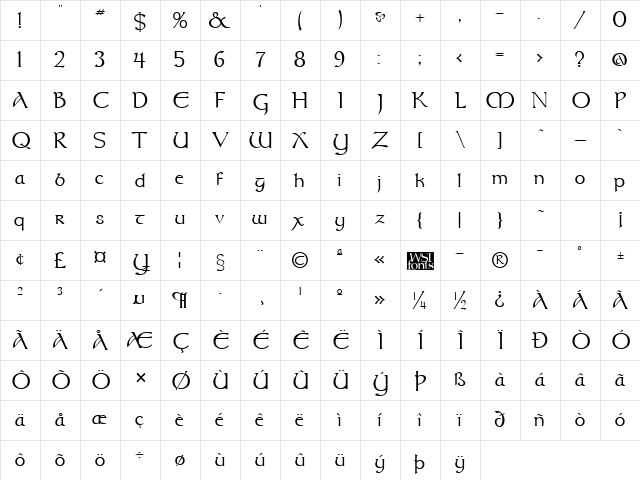
TolkienUpright Regular
Design Context for TolkienUpright
TolkienUpright is a composed and adaptable typeface that performs quietly and consistently across a wide range of design contexts.